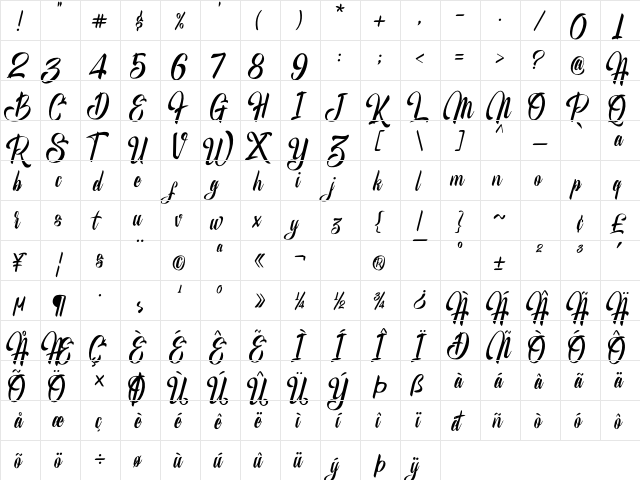
Mr Scripton Regular
Design Context for Mr Scripton Typeface
Mr Scripton flows with the natural rhythm of handwritten lettering, making it ideal for designs that call for warmth and personal expression.
Font Pairing: Combine Mr Scripton with a simple geometric sans for maximum contrast — the tension between flowing curves and clean structure is a classic typographic pairing.
Pro Tip: Use Mr Scripton for short runs of text — names, titles, or taglines. Extended body copy in script faces tires the eye quickly.